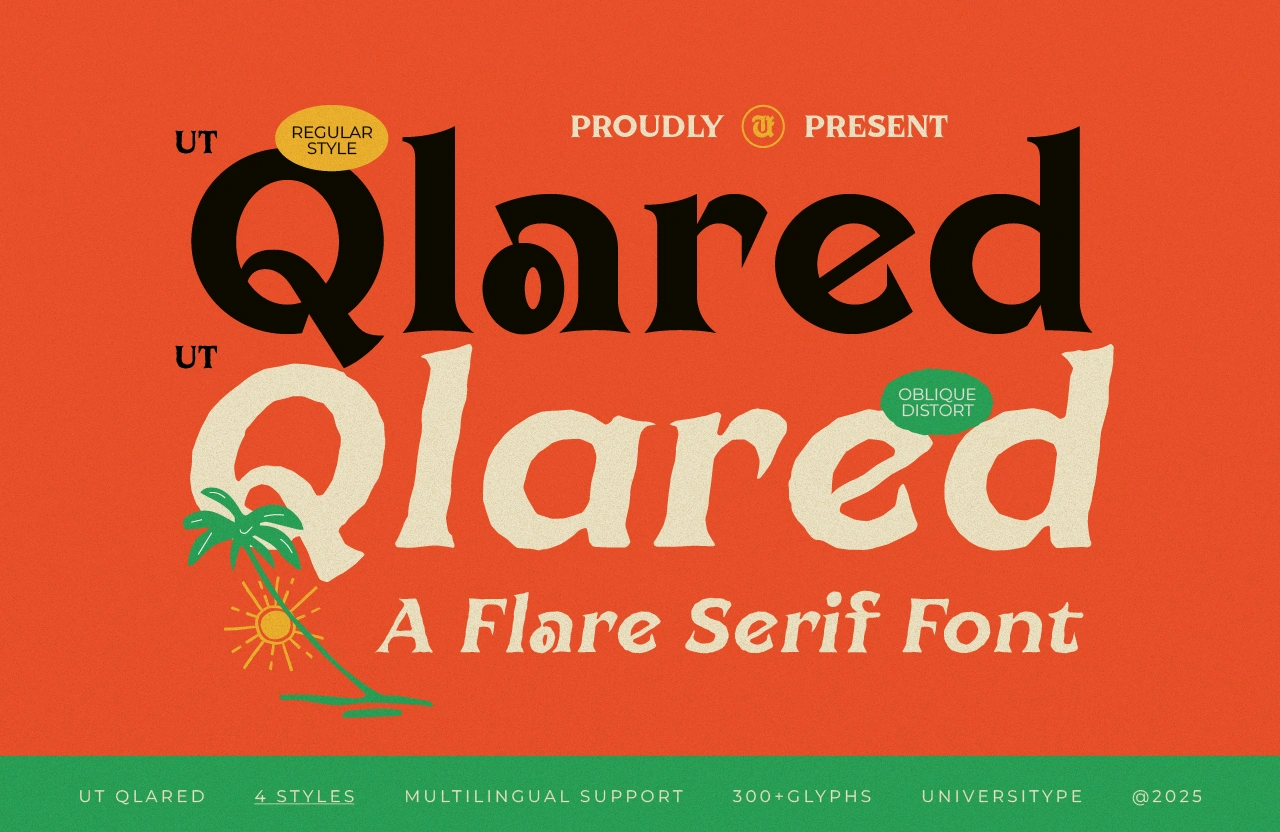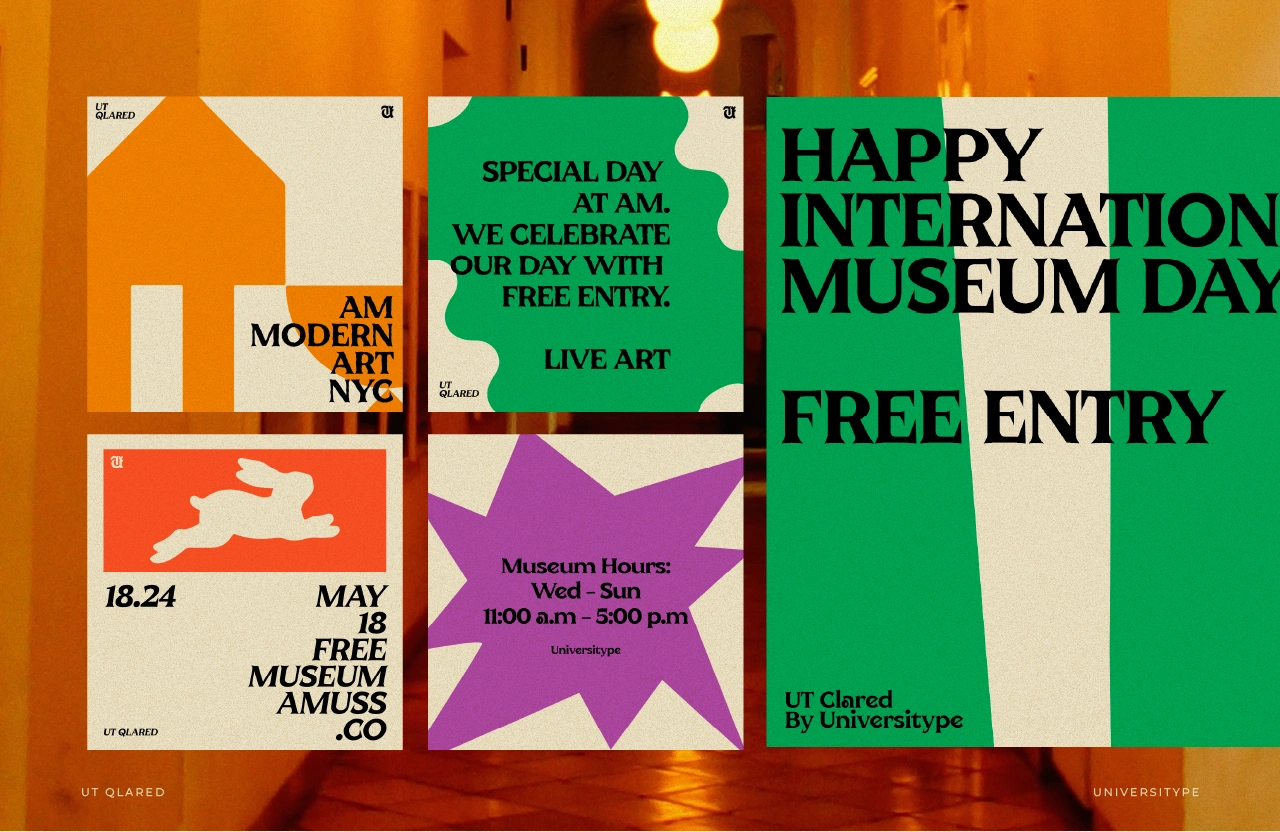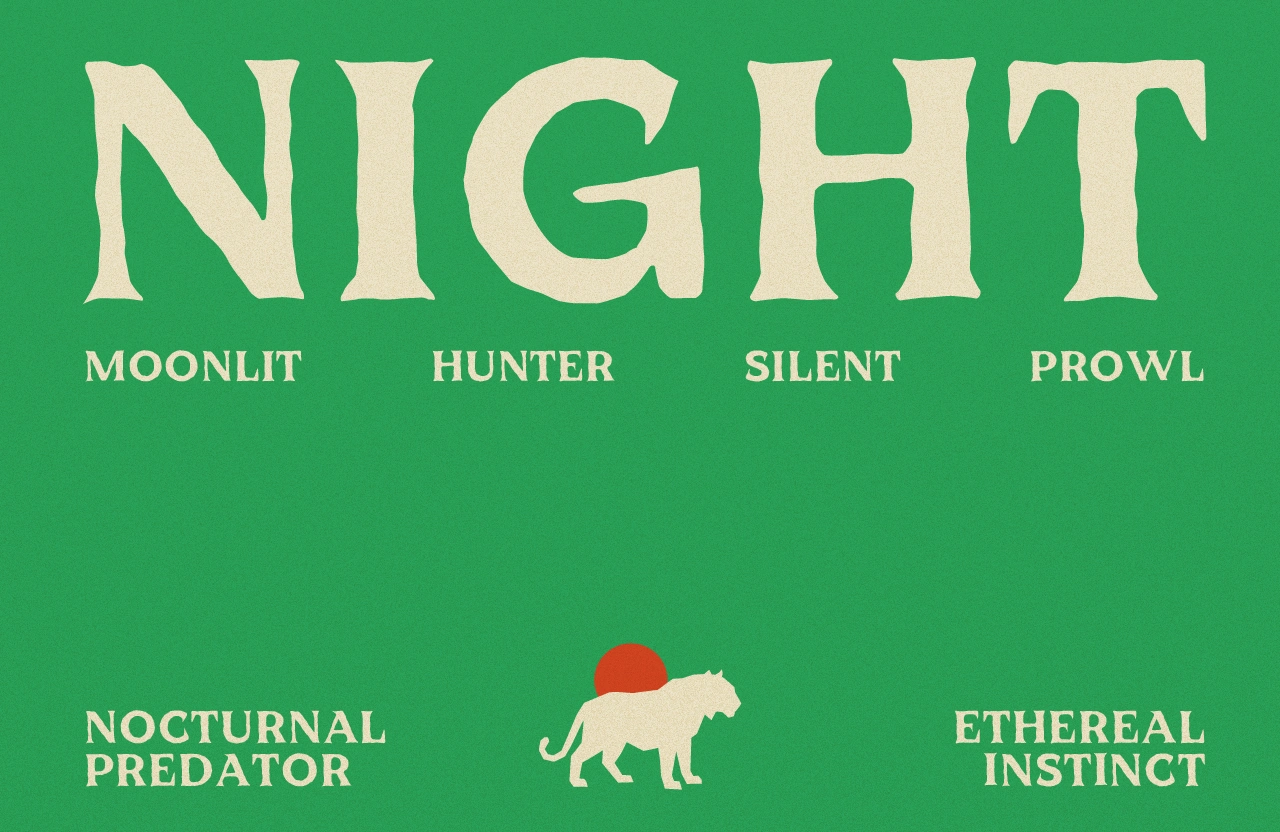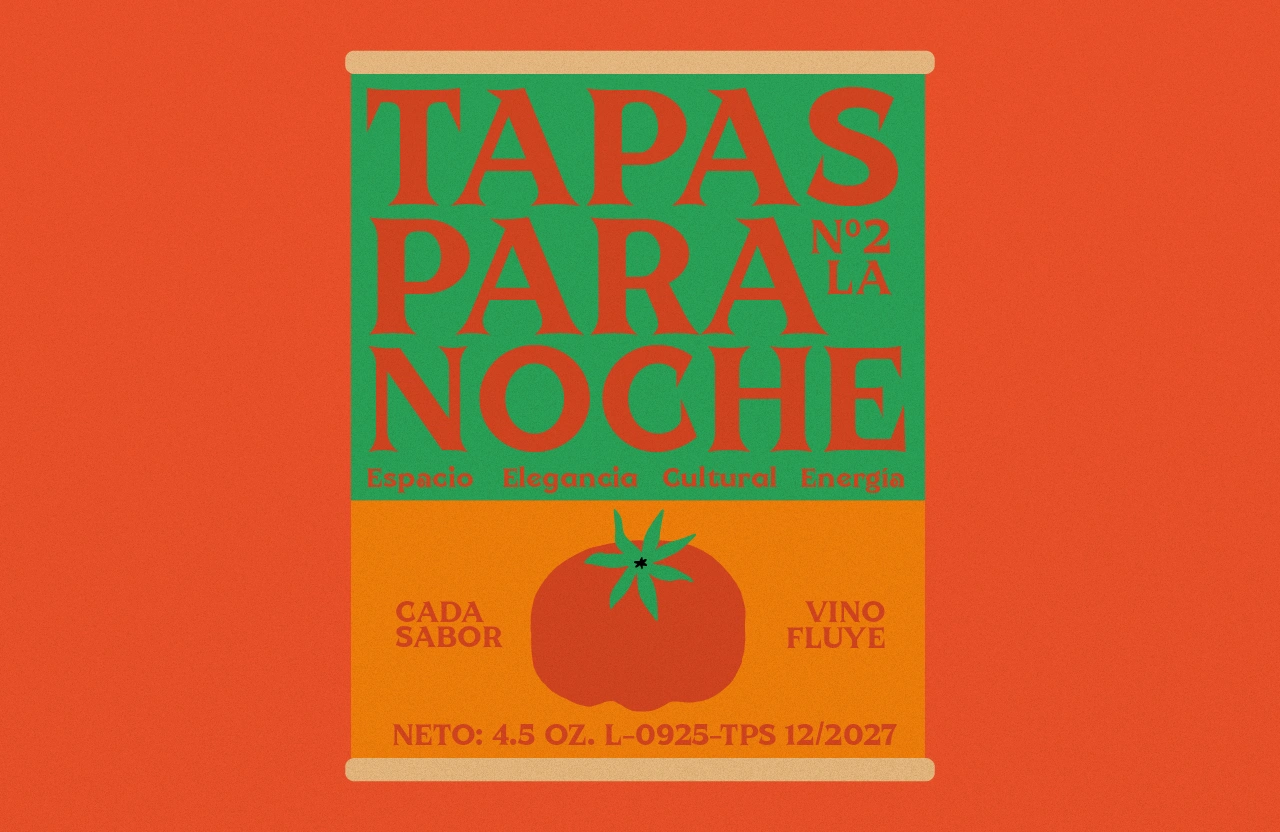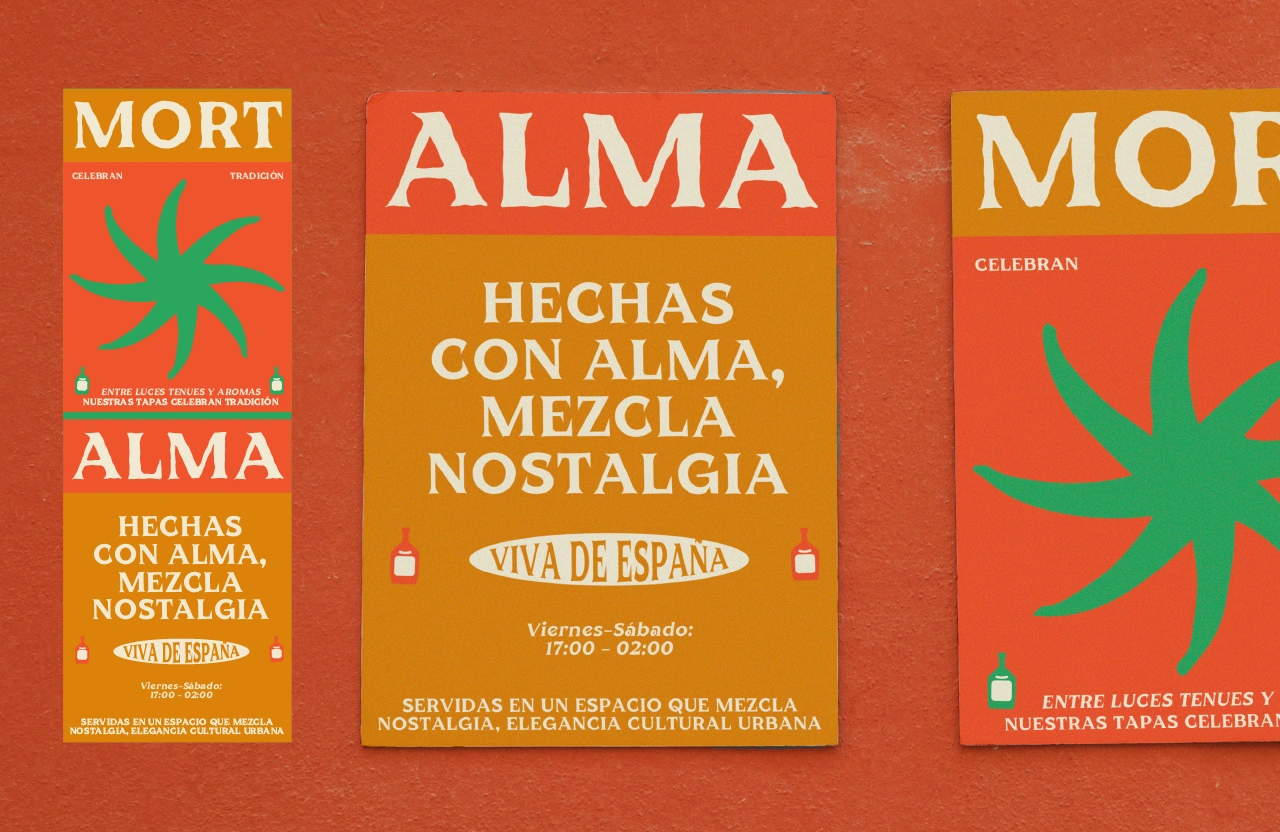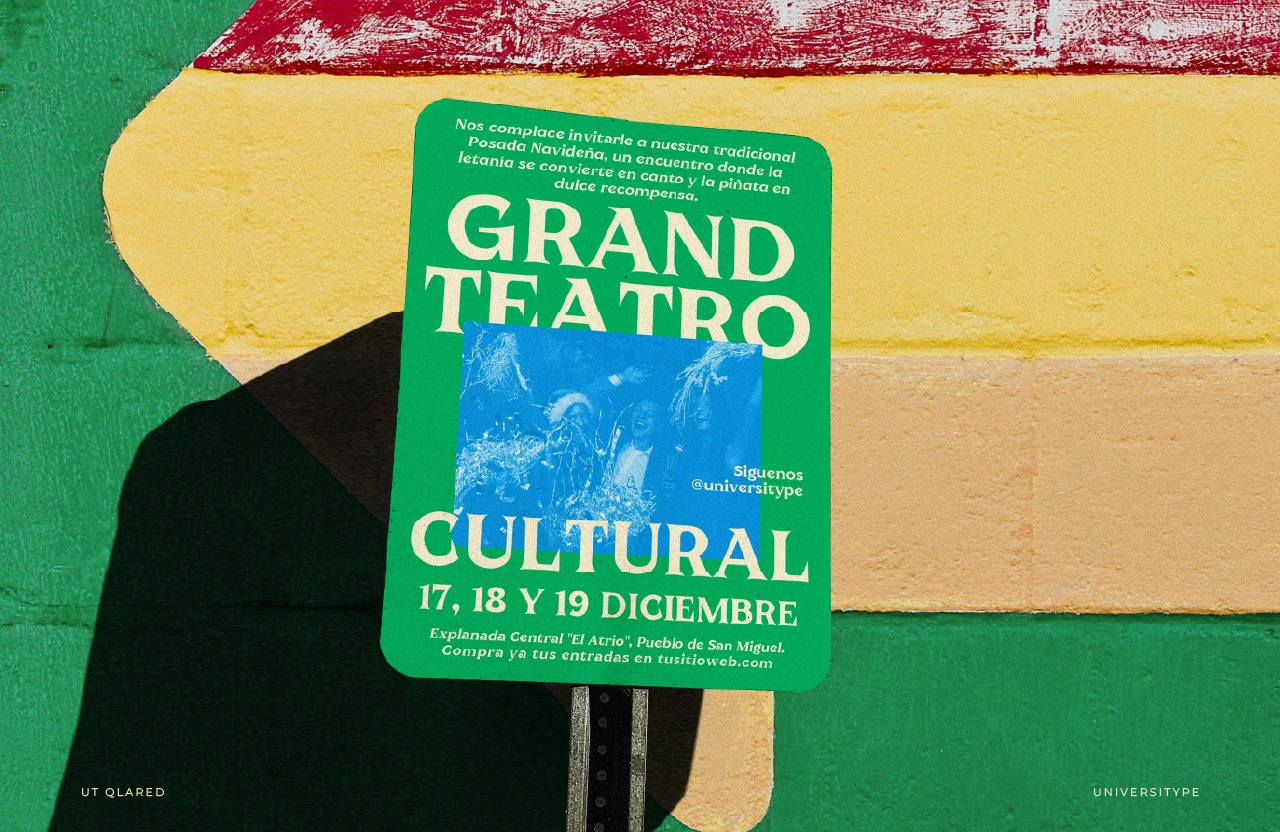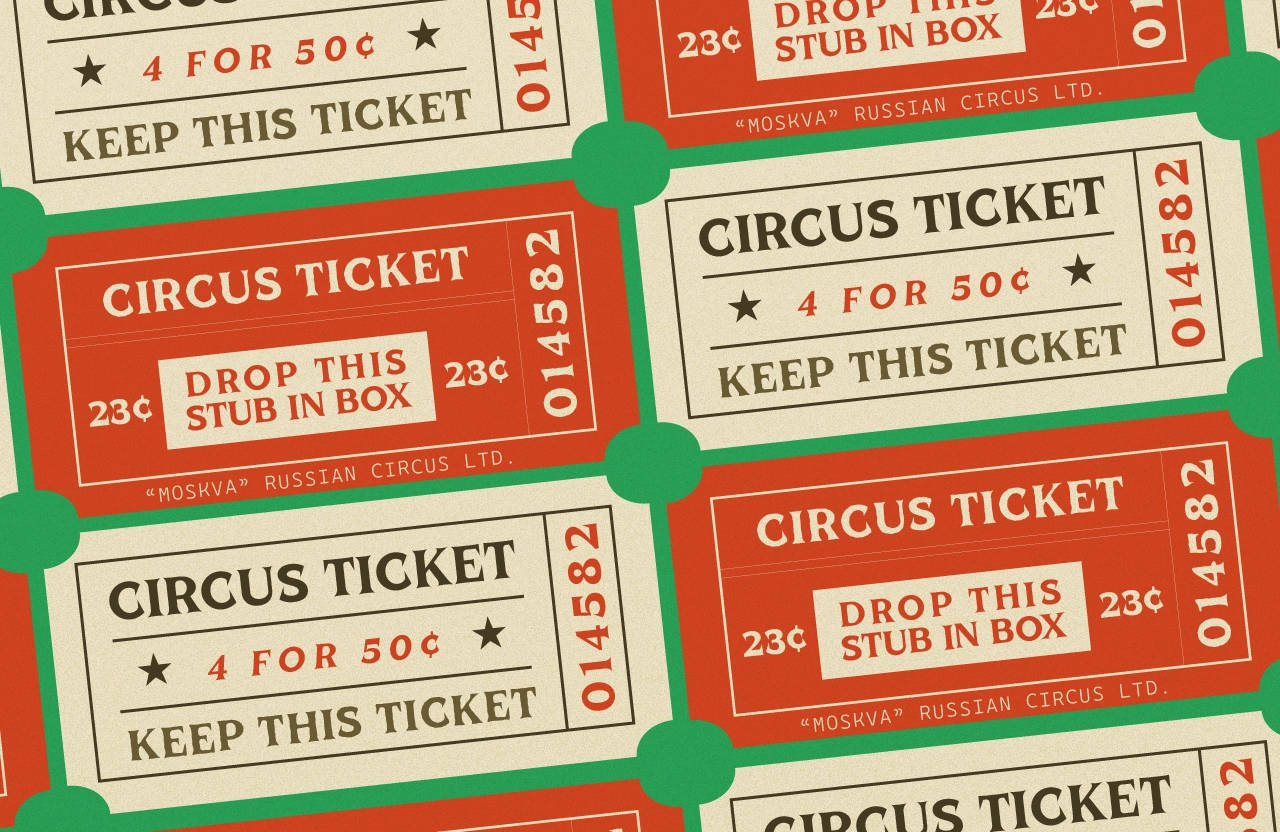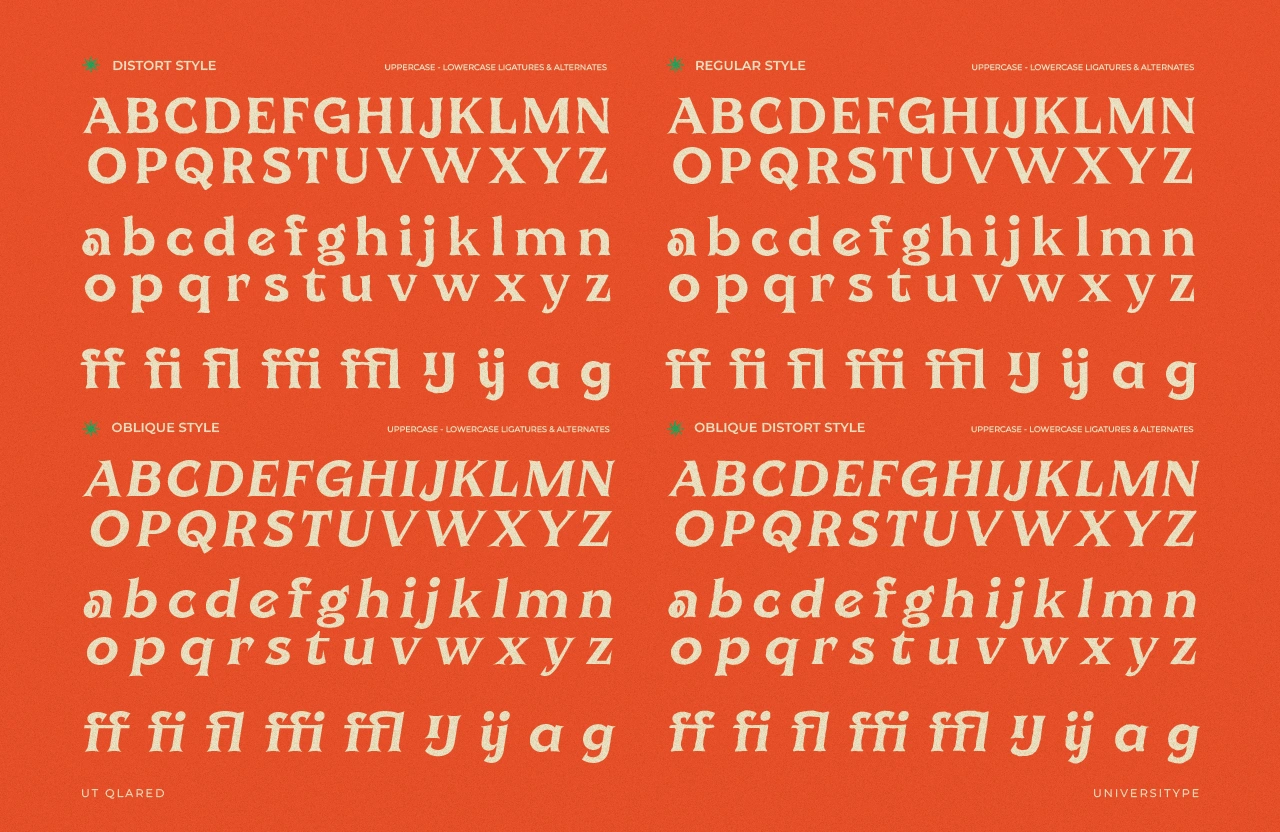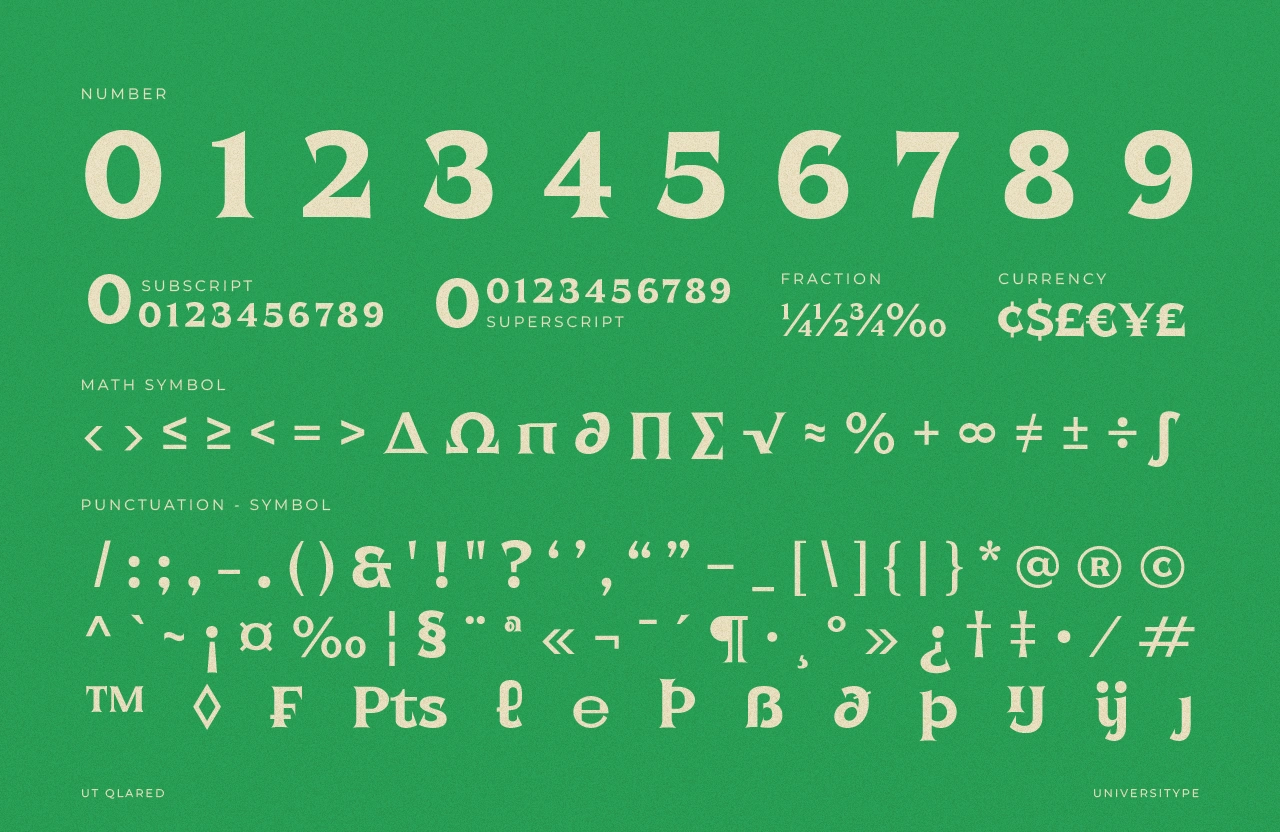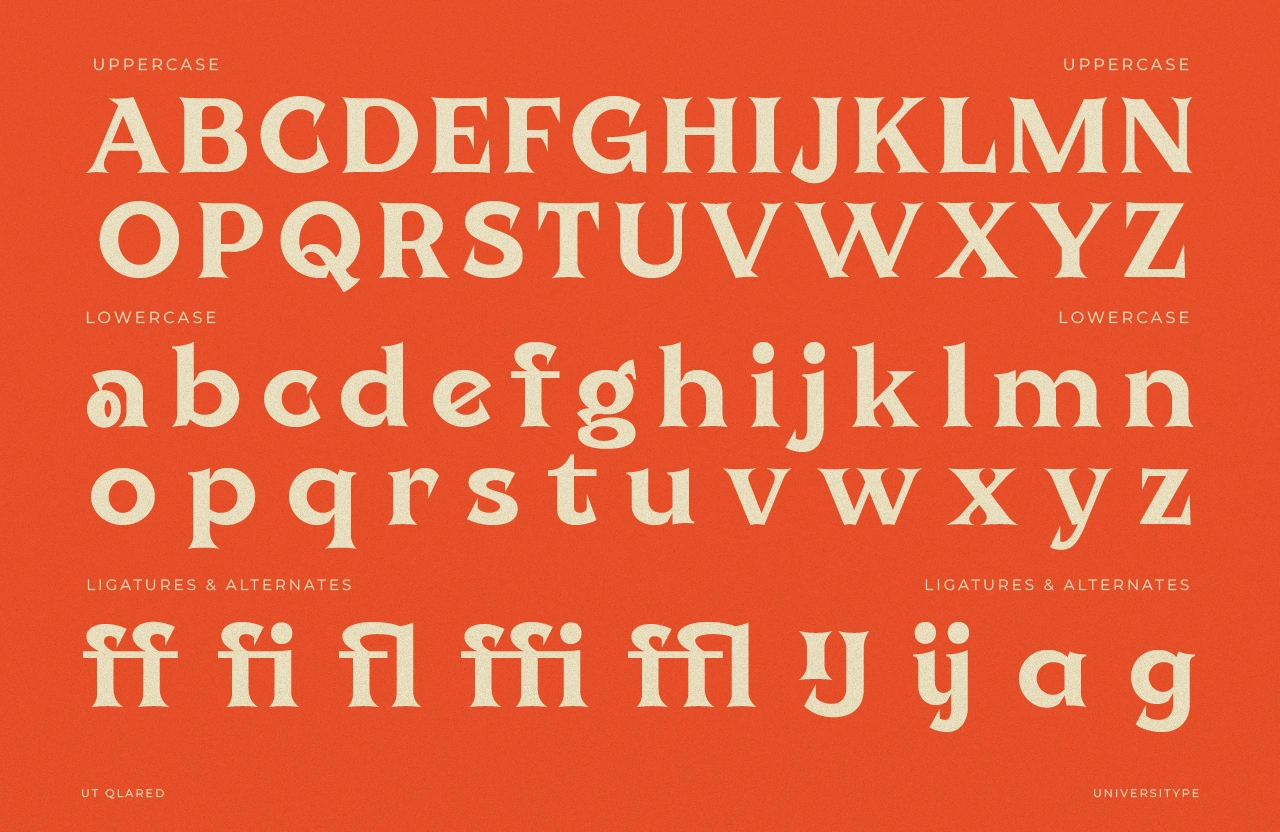
UT Qlared
UT Qlared is a bold flare serif built for presence. Sharp, tapered serifs meet fluid, almost liquid terminals, creating a rhythm that feels structured yet alive. It carries an editorial attitude with just enough edge clean when you need clarity, expressive when you want texture and tension.
UT Qlared – A Flare Serif Font
UT Qlared is a bold flare serif built for presence. Sharp, tapered serifs meet fluid, almost liquid terminals, creating a rhythm that feels structured yet alive. It carries an editorial attitude with just enough edge—clean when you need clarity, expressive when you want texture and tension.
With four distinct styles, UT Qlared gives designers room to play between polished precision and controlled distortion. The result is a vintage-modern hybrid that feels at home in high-end branding, expressive layouts, and visually rich storytelling.
Key Features
• Four styles
Regular, Oblique, Distort, Oblique Distort—built to flex across moods and layouts
• Ink-bleed textures
Distort styles echo vintage letterpress, adding warmth and lived-in character
• Rich ligatures & alternates
ff, fi, fl, ffi, ffl, plus stylistic alternates for a custom, hand-drawn feel
• High-contrast flare geometry
Dramatic terminals create a striking staircase rhythm in vertical compositions
Design Inspiration
UT Qlared grows from the idea of Cultura y Energía. Think Mediterranean summers—hard sunlight cutting across coastal architecture, softened by the movement of the sea. It pulls cues from mid-century Spanish editorial design and filters them through a contemporary, experimental lens. Familiar, but restless.